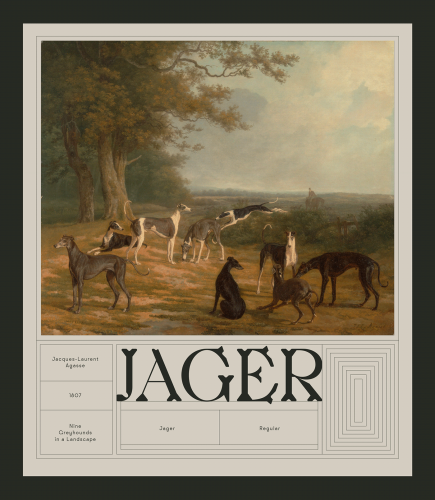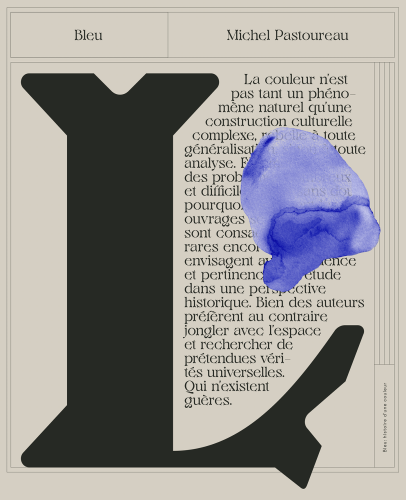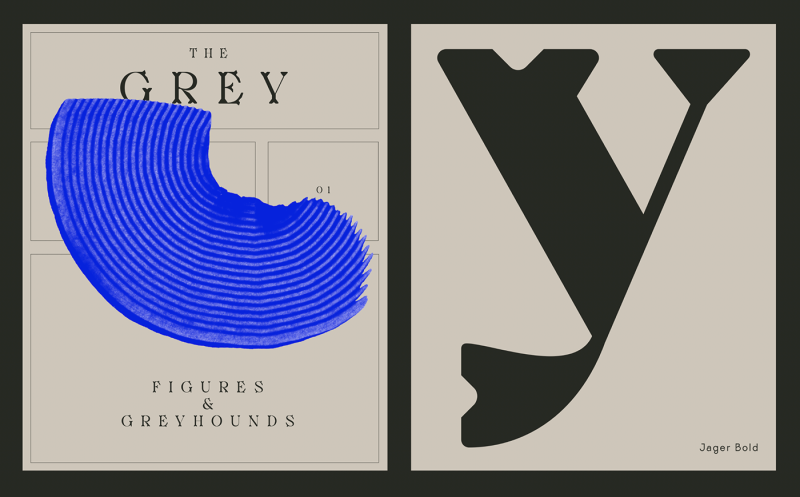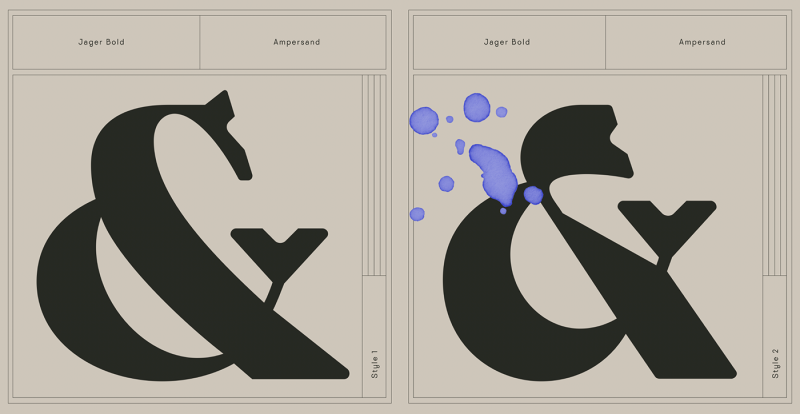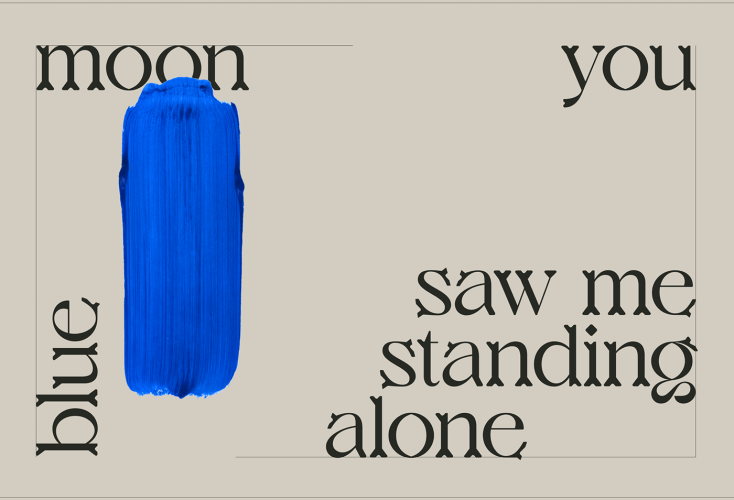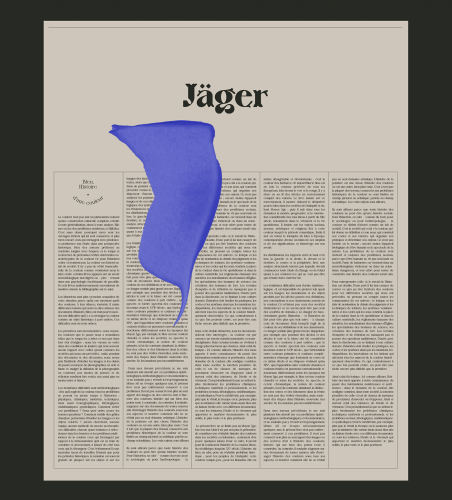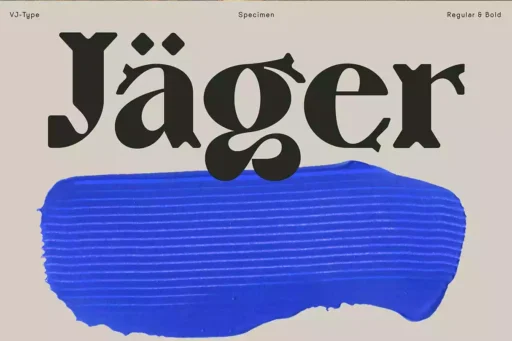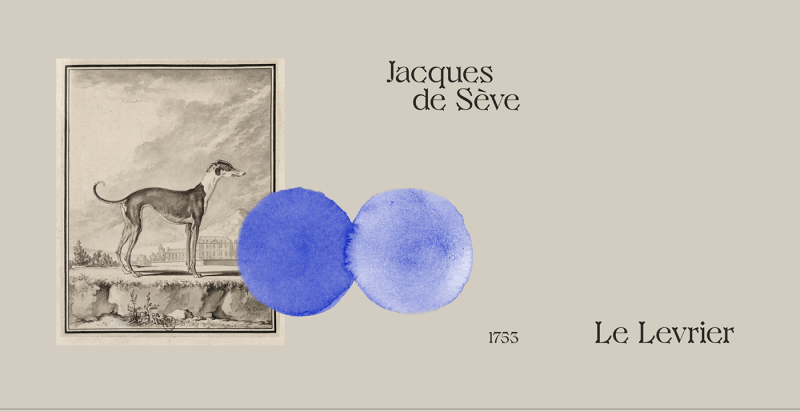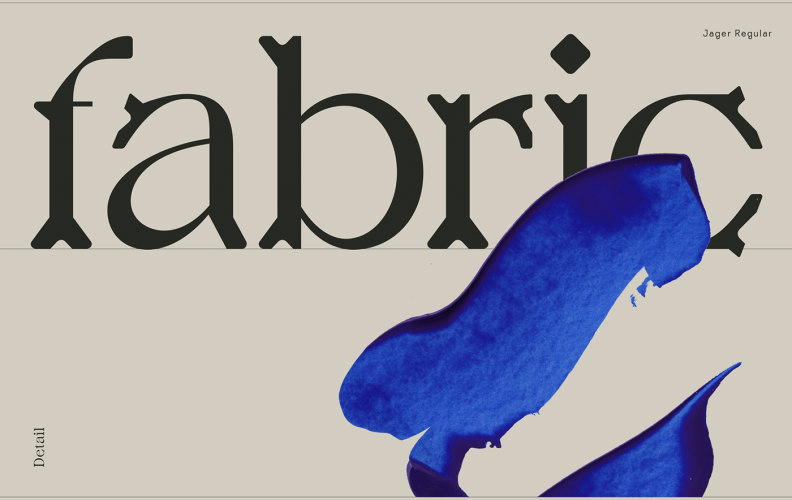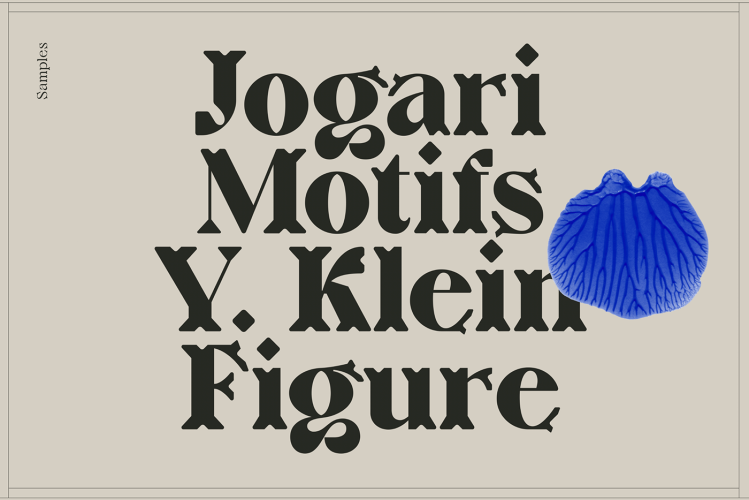
Jager Font
Jager is a contemporary display font. A lot of people think it is a perfect instrument for making eye-catching titles or texts of short to medium length. Jérémy Schneider came up with this font in 2020 for VJ Type, a famous type foundry.
The start of Jager’s journey was a show of contemporary art crafts at the Musées des Arts Décoratifs in Paris. Jérémy Schneider created the first sketches of this type five years before its official launch, thus, he became a true example of perseverance and diligence. The deep counterforms of the letters are similar to the intricate carvings that can be seen in sculptures or chisel work.
The designers made the design by carving a piece of wood with the fine-cut details. The contrary is, the round edges soften its overall appearance and make it friendly and pleasant.
The Jäger Master is almost the same as the original plan. Thus, the majority of the original bold and advanced typefaces are presented. At the same time, the Jäger Classic version changes the shape of the letters’ counters at the tops. Hence, it is a more organic and flexible decision for designers.
Where Jager Font works best
Jager Font is built for size: event posters, hero headlines and billboard-style layouts.
High contrast display type like Jager Font reads instantly in thumbnails and motion graphics.
What is Jager Font good for?